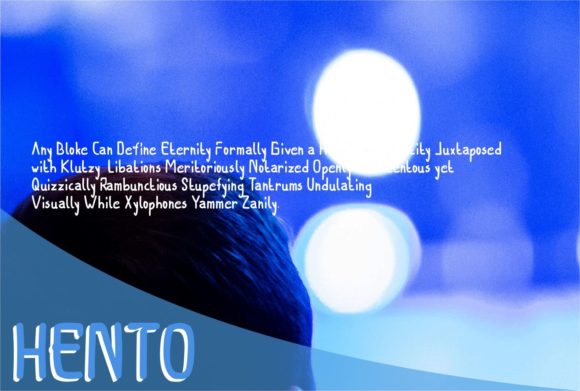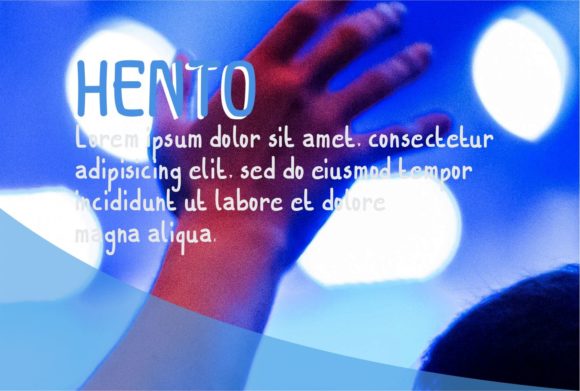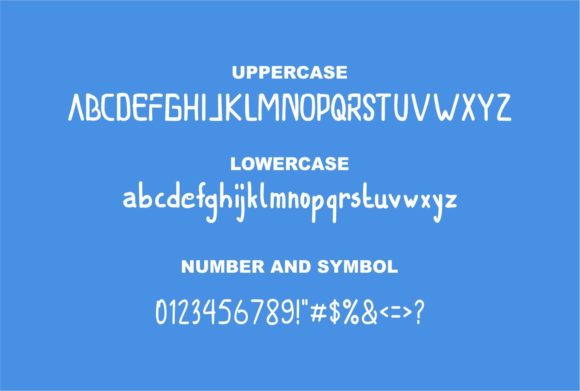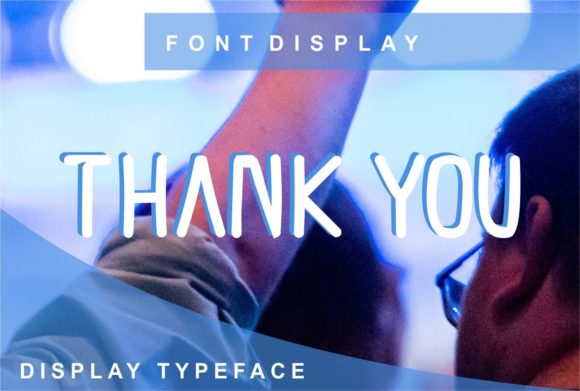
It’s that moment when you finally find the perfect font to elevate your design. You scroll through your collection, and suddenly, it hits you – the perfect combination of style and versatility. For designers, this moment is what drives creativity and brings ideas to life. And for those who have been searching, we’re excited to introduce you to the Hento Font, a clean and adaptable display font that’s sure to become your go-to choice.
Whether you’re creating posters, flyers, or prints, Hento Font is the perfect companion to help you achieve your design goals. Its sleek and modern design makes it an excellent choice for any project, and its adaptability ensures that it will look stunning across various mediums. With Hento Font, the possibilities are endless, and we can’t wait to see what you create.
Hento Font Key Features
- Font Family: Hento Font is a sans-serif font family designed for digital use, available in various weights and styles.
- Character Set: The font includes a wide range of characters, including Latin, Cyrillic, and Greek alphabets, as well as various punctuation marks and symbols.
- Resolution: The font is designed for high-resolution displays, making it suitable for use in digital media, such as websites, mobile apps, and e-books.
- Size: The font is available in various font sizes, ranging from 8 to 72 points, allowing for flexibility in design and layout.
- Unique Characteristics: The Hento Font features a unique blend of modern and minimalist design elements, with clean lines, simple shapes, and a neutral color palette, making it suitable for a wide range of design applications.
Hento Font Review
I recently had the chance to work with Hento Font, and I must say it’s an interesting choice. Let’s dive into the details.
- Unique design**: Hento Font has a distinct and quirky feel to it. If you’re looking for a font that stands out from the crowd, this might be a great choice.
- Good for creative projects**: The font’s playfulness makes it suitable for creative projects, such as children’s books, posters, or advertisements.
- Easy to read**: Despite its unusual design, Hento Font is still easy to read, which is a plus.
- Limited versatility**: Hento Font might not be the best choice for formal or professional projects, as its playful nature might not be suitable for such settings.
- Not ideal for small text**: Due to its quirky design, Hento Font might not be the best choice for small text or body copy, as it can become difficult to read.
Overall, Hento Font is a fun and creative option that’s perfect for projects that need a bit of personality. However, it might not be the best choice for every project, and its limitations should be taken into consideration.
Common Use Cases for Hento Font
Hento Font is commonly used in a variety of design applications, including:
– Logo design
– Branding
– Digital signage
– Print materials
– Web design